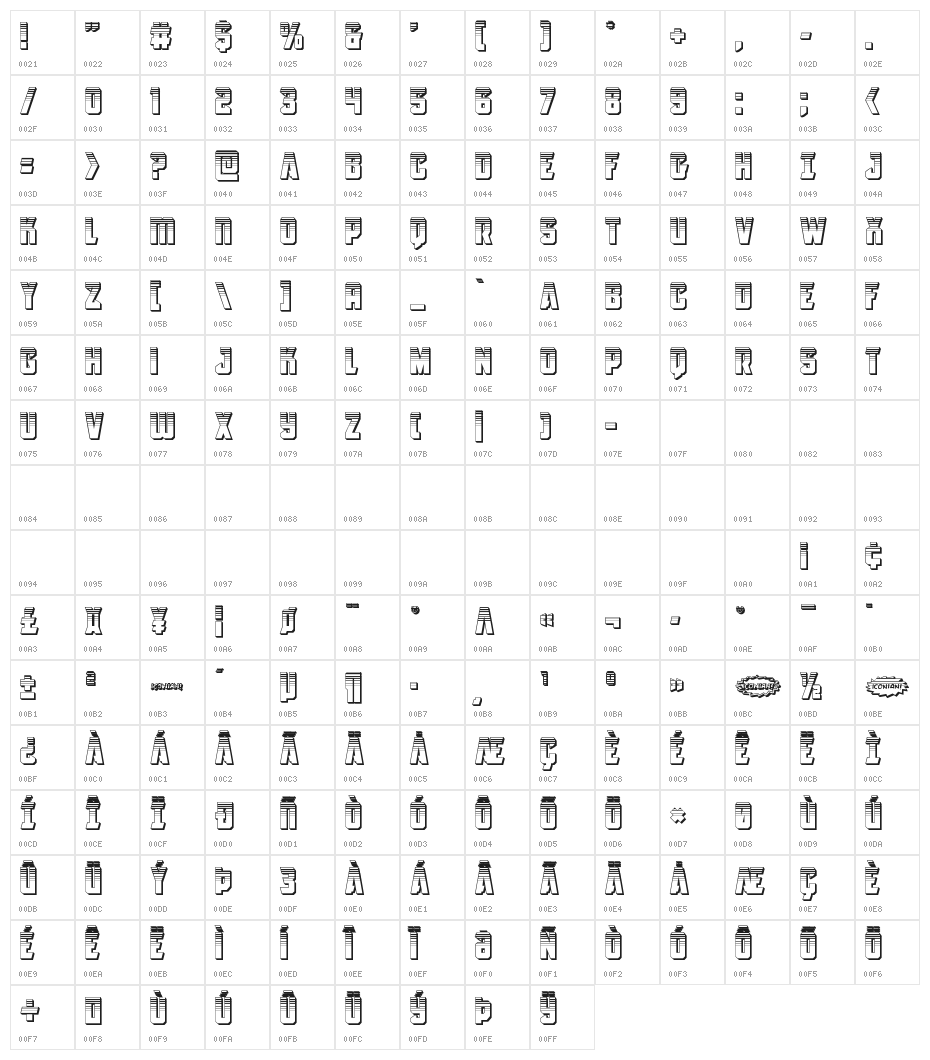
Antilles Platinum Font
Antilles Platinum Description
This font features a bold, three-dimensional design with a distinct shadow effect that gives it a striking, layered appearance. The uppercase letters are characterized by strong, geometric lines and a blocky structure, making them highly visible and impactful. The font includes a full set of uppercase letters, numbers, and a variety of special characters, all maintaining the same bold and structured style. The design is reminiscent of retro and vintage aesthetics, with a modern twist due to its clean lines and precise angles. The shadow effect adds depth and dimension, making it ideal for creating eye-catching headlines and titles.
| Overall Style | Retro, Modern |
| Proposed Projects | Ideal for posters, logos, video game titles, and any project needing a bold, eye-catching typeface. |